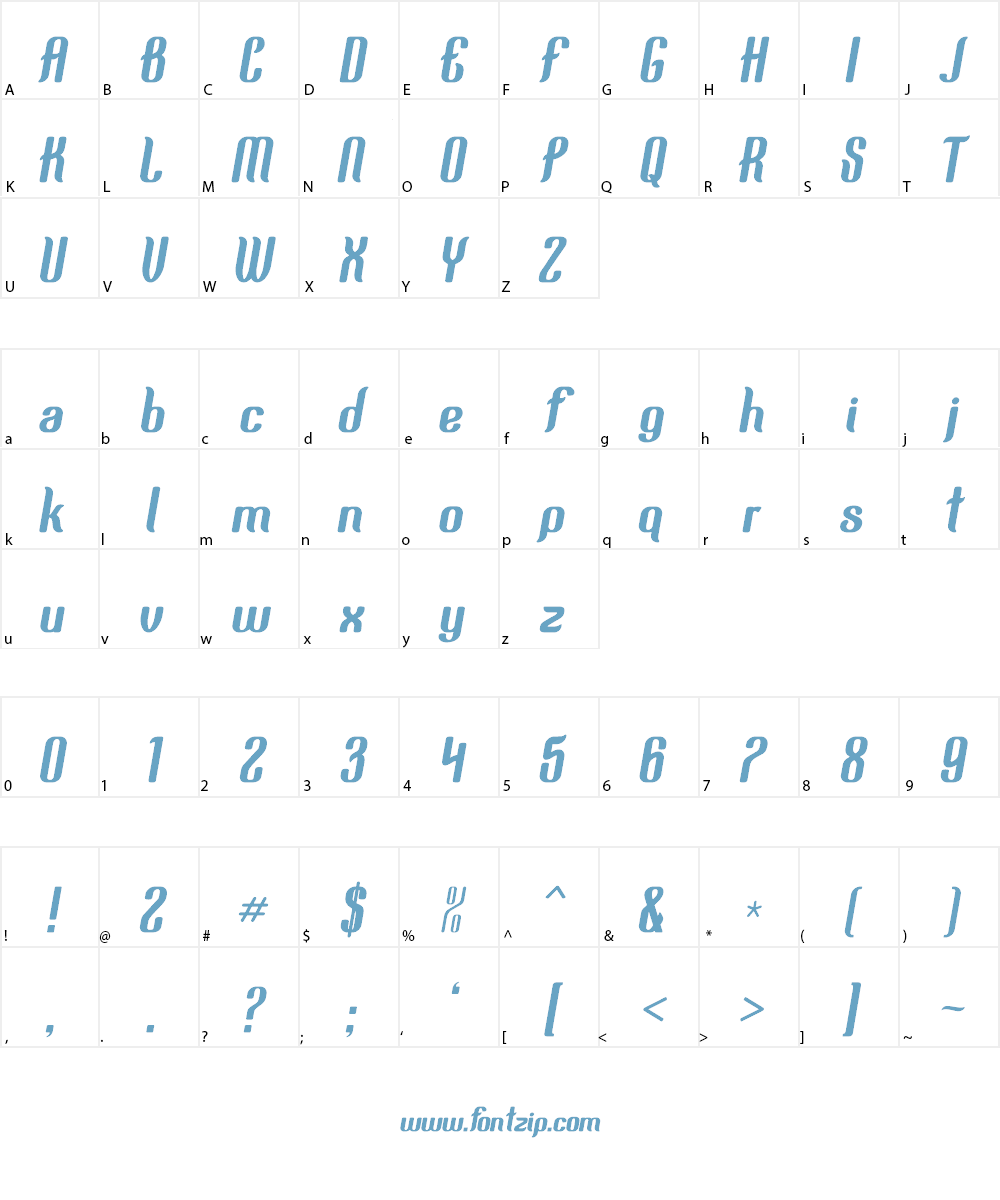
Squimpy is a unique clean appearance typeface with the sleek rounded lines,can be used in various application like web pages, screen, title.and so on